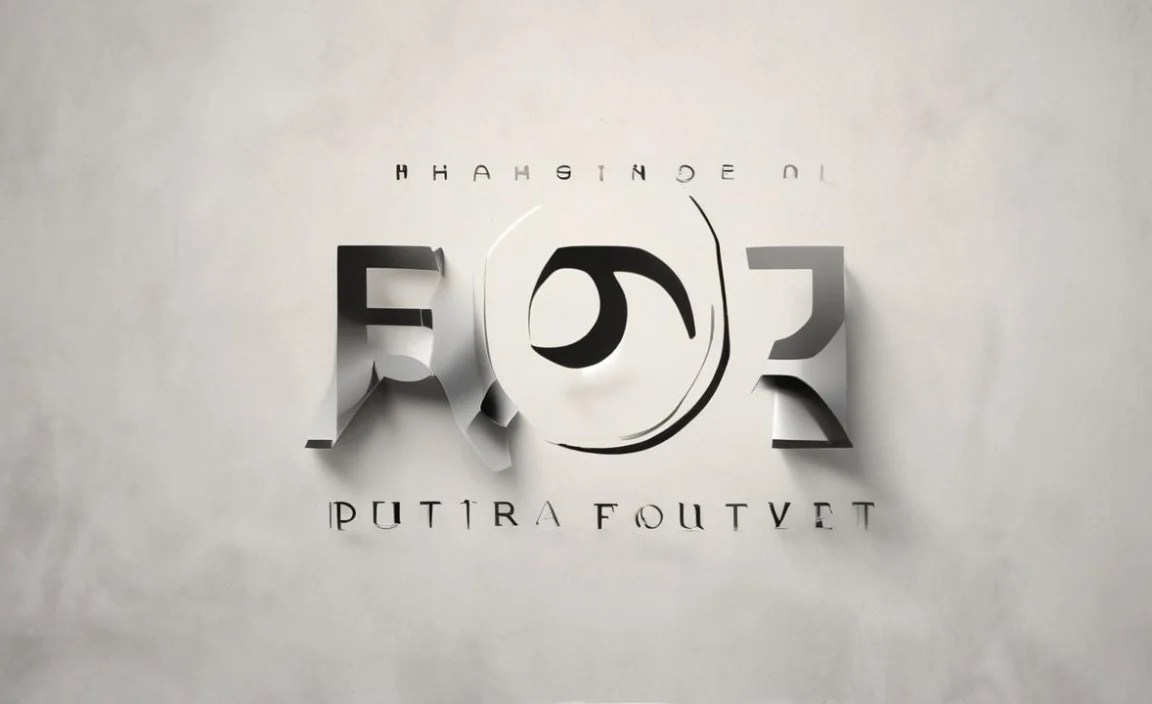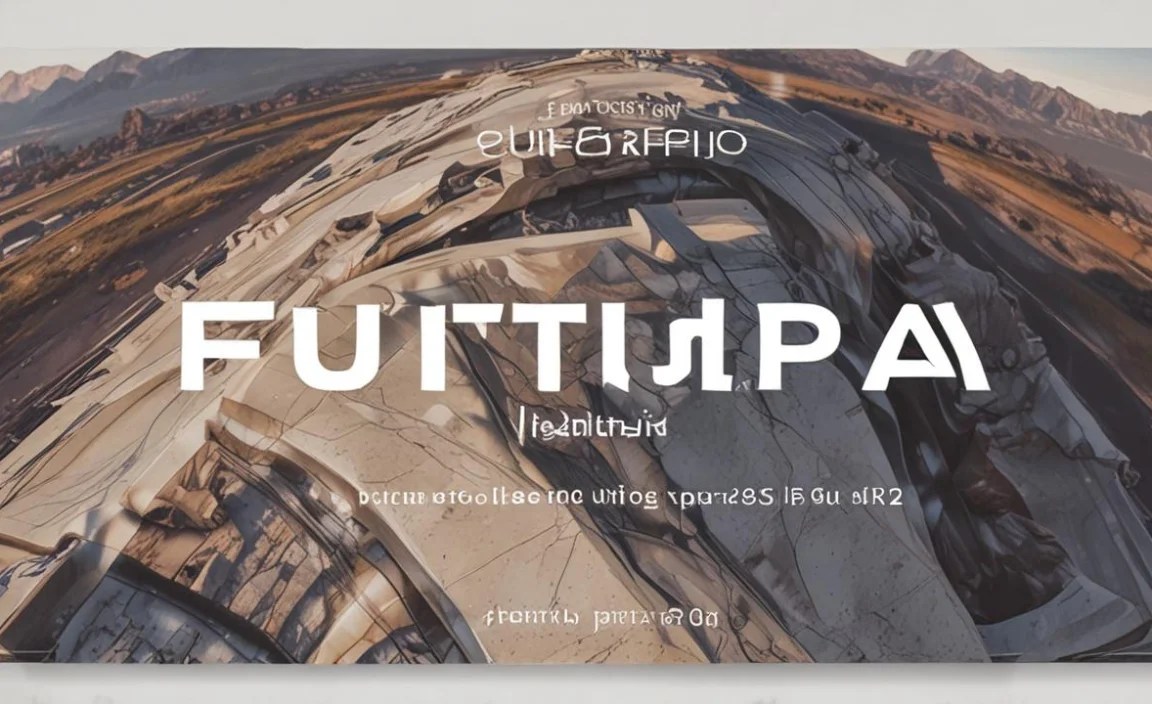
Futura is a geometric sans-serif typeface that stands out for its clean, modern aesthetic and versatility. Designed by Paul Renner in 1927, Futura has remained a timeless favorite in the design world due to its sleek and straightforward appearance.
Futura Font Information
| Name | Futura |
| Foundry | Bauer Type Foundry |
| Designer | Paul Renner |
| Type | Geometric Sans-serif |
Futura Font Family Includes
- Futura Light
- Futura Light Oblique
- Futura Book
- Futura Book Oblique
- Futura Medium
- Futura Medium Oblique
- Futura Demi
- Futura Demi Oblique
- Futura Bold
- Futura Bold Oblique
- Futura Extra Bold
- Futura Extra Bold Oblique
- Futura Heavy
- Futura Heavy Oblique
- Futura Condensed Light
- Futura Condensed Light Oblique
- Futura Condensed Medium
- Futura Condensed Medium Oblique
- Futura Condensed Bold
- Futura Condensed Bold Oblique
- Futura Condensed Extra Bold
- Futura Condensed Extra Bold Oblique
- Futura Display
- Futura Display Condensed
Where Futura Font Is in Use
Futura is widely used in various design contexts, including branding, advertising, web design, and print media. Its clean and modern appearance makes it a popular choice for various applications. Notable uses include:
- Volkswagen advertisements
- Supreme branding
- NASA’s commemorative plaques and plaques
- IKEA signage (pre-2009)
- Wes Anderson’s movie title sequences
Futura Font FAQs
2. Why is Futura a Popular Choice Among Designers?
Futura’s clean, modern, and versatile design makes it ideal for various design applications, from branding to web design.
3. What Are The Future Trends For Futura Font?
Future trends for the Futura font family include increased graphic design and UI design versatility. Popular styles like Futura Bold, Futura Medium, and Futura Light will continue to thrive alongside modern variable fonts.
4. When Was Futura Font Created?
Paul Renner created the Futura font in the twentieth century. It is part of the Futura font family. It includes popular styles such as Futura Bold, Futura Medium, and Futura Light, as well as condensed versions like Futura Extra Bold Condensed.
5. What Free Font Is Closest To Futura?
Many consider “Libre Franklin” the closest free font to Futura. Using free versions from Google Fonts for graphic design projects can be beneficial. Popular choices include “Futura Light,” “Futura Medium,” and “Futura Bold,” which offer versatility for UI design and typography.
6. How Many Fonts Are In The Futura Family?
The Futura font family includes several styles, including Futura Light, Futura Medium, Futura Bold, and Futura Black, as well as various condensed versions, such as Futura Light Condensed and Futura Extra Bold Condensed.
7. What Are The Different Versions Of Futura Font?
The Futura font family includes various styles, including Futura Light, Medium, Bold, Extra Bold, and Black. There are also condensed versions, like Futura Light Condensed, Medium Condensed, and Bold Condensed, as well as italics and small caps.